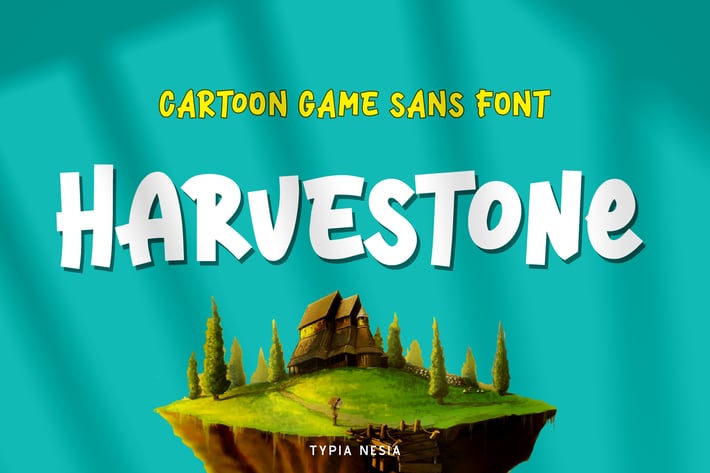
Harvestone - Funny Game Font
Harvestone - Funny Game sans - Comic Cute Cartoon Font
Suitable for any design needs : kid game logo, snack, kindergarten branding, food & beverage packaging, child kid design, modern advertising design, cartoon, animation, kid book, toys branding, poster quote, book / cover Title, website / blog, card design and any hand-lettered needs.